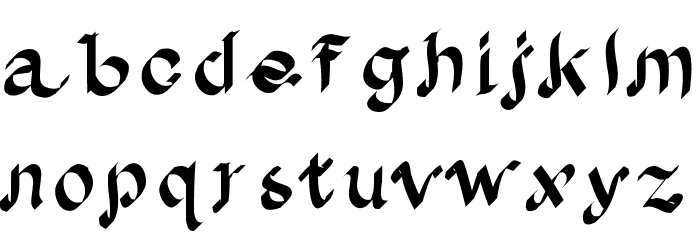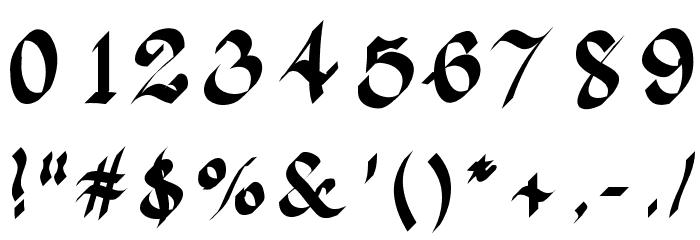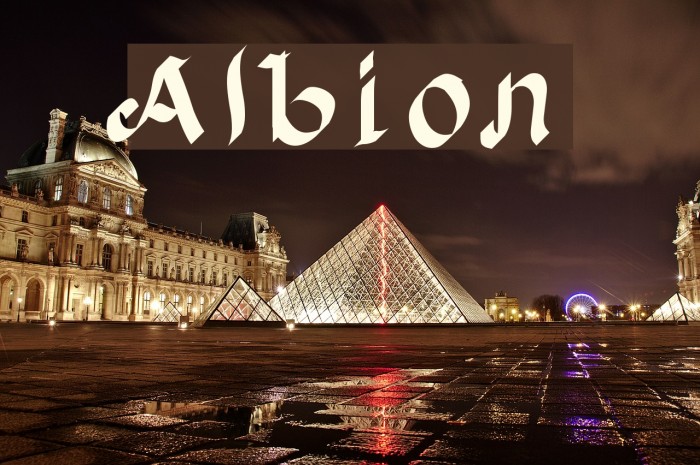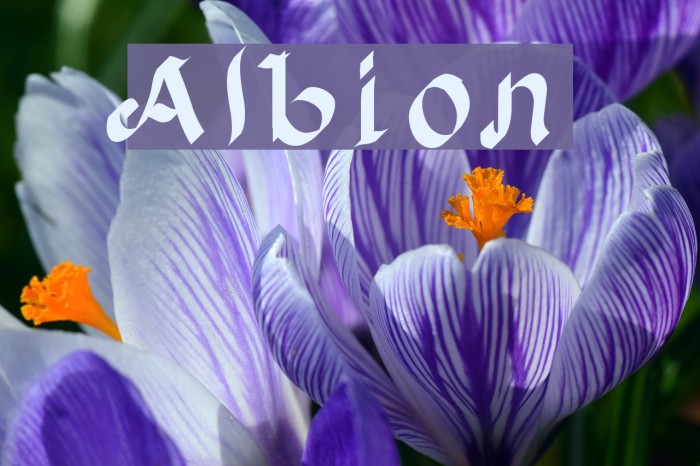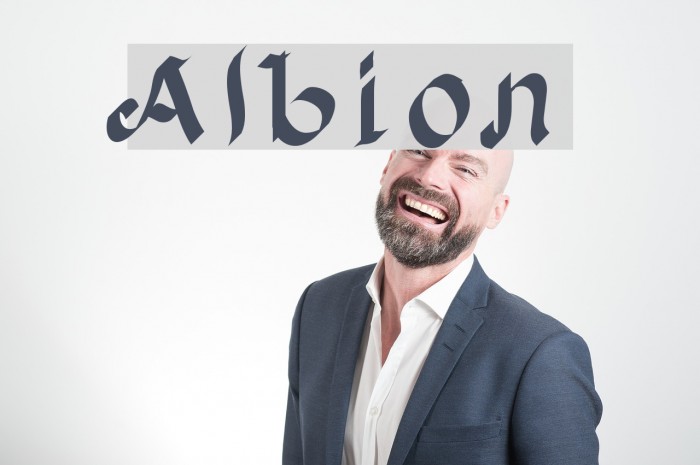
Albion Font
This font exhibits a classic blackletter style, characterized by its ornate and intricate letterforms. The uppercase letters feature sharp, angular strokes with a bold presence, while the lowercase letters maintain a consistent style with slightly more fluidity. The numbers are distinct and carry the same decorative flair, making them stand out. Special characters are designed to match the overall aesthetic, adding to the font's cohesive look. The font's high contrast in stroke thickness enhances its dramatic appearance, making it suitable for impactful designs.
A classic blackletter font with bold, ornate letterforms and high contrast.
- Proposed Projects: Ideal for projects requiring a historical or medieval touch, such as book covers, posters, or themed event invitations.
- Category: Blackletter
- Overall Style: Classic
- Use Case: Logos, Headlines, Decorative text